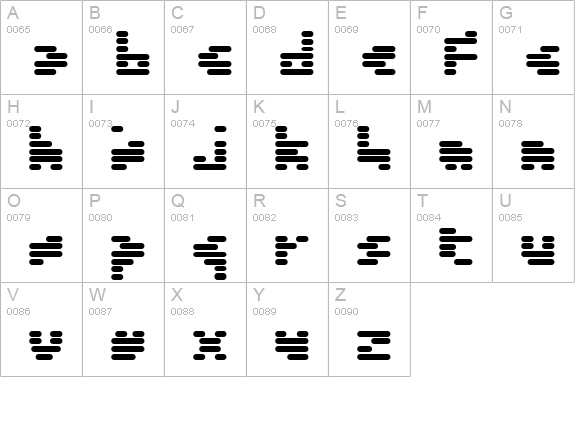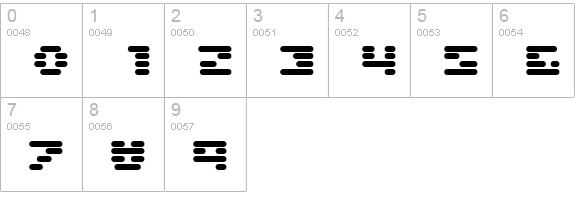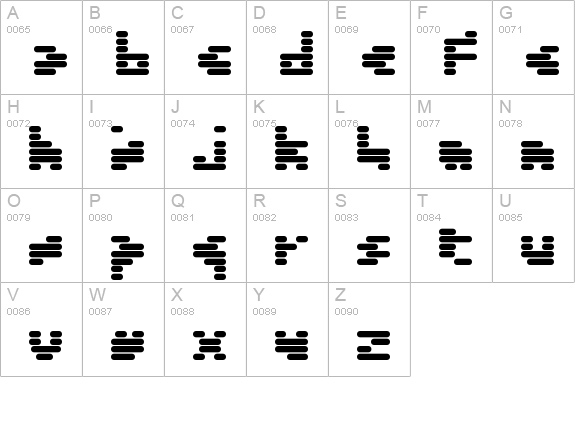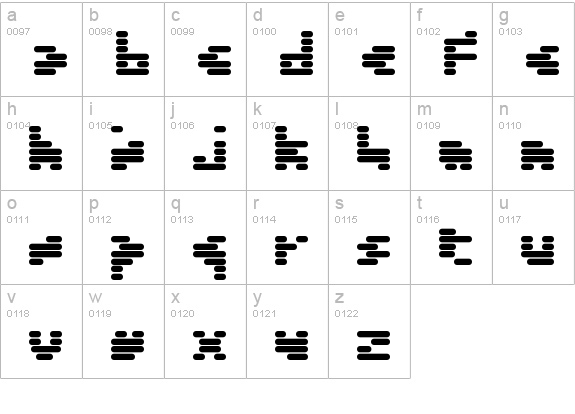
Invalid font is a unique and captivating typeface that is sure to make a statement in any design project. Its bold and edgy letterforms are filled with personality and creativity, making it perfect for adding a touch of modernity and excitement to your designs. Whether you're creating a logo, poster, or website, Invalid font will instantly grab attention and leave a lasting impression. What makes Invalid font even more impressive is that it is freely available to download at FontsMarket.com. Yes, you heard that right - you can get this incredible font without spending a single penny. This means that you can add a professional and stylish touch to your projects without breaking the bank. With its extensive character set, Invalid font offers endless possibilities for customization and creativity. It includes both uppercase and lowercase letters, numerals, punctuation marks, and special characters, ensuring that you have everything you need to bring your design visions to life. Installing Invalid font is a breeze, and it works seamlessly with popular design software such as Adobe Photoshop, Illustrator, and InDesign. Once you have this font in your arsenal, you'll find yourself reaching for it time and time again. So, why settle for ordinary fonts when you can have the extraordinary? Download Invalid font for free at FontsMarket.com and elevate your designs to new heights. Don't miss out on this incredible opportunity to add a touch of flair and originality to your projects without spending a dime. Get Invalid font today and let your creativity soar.